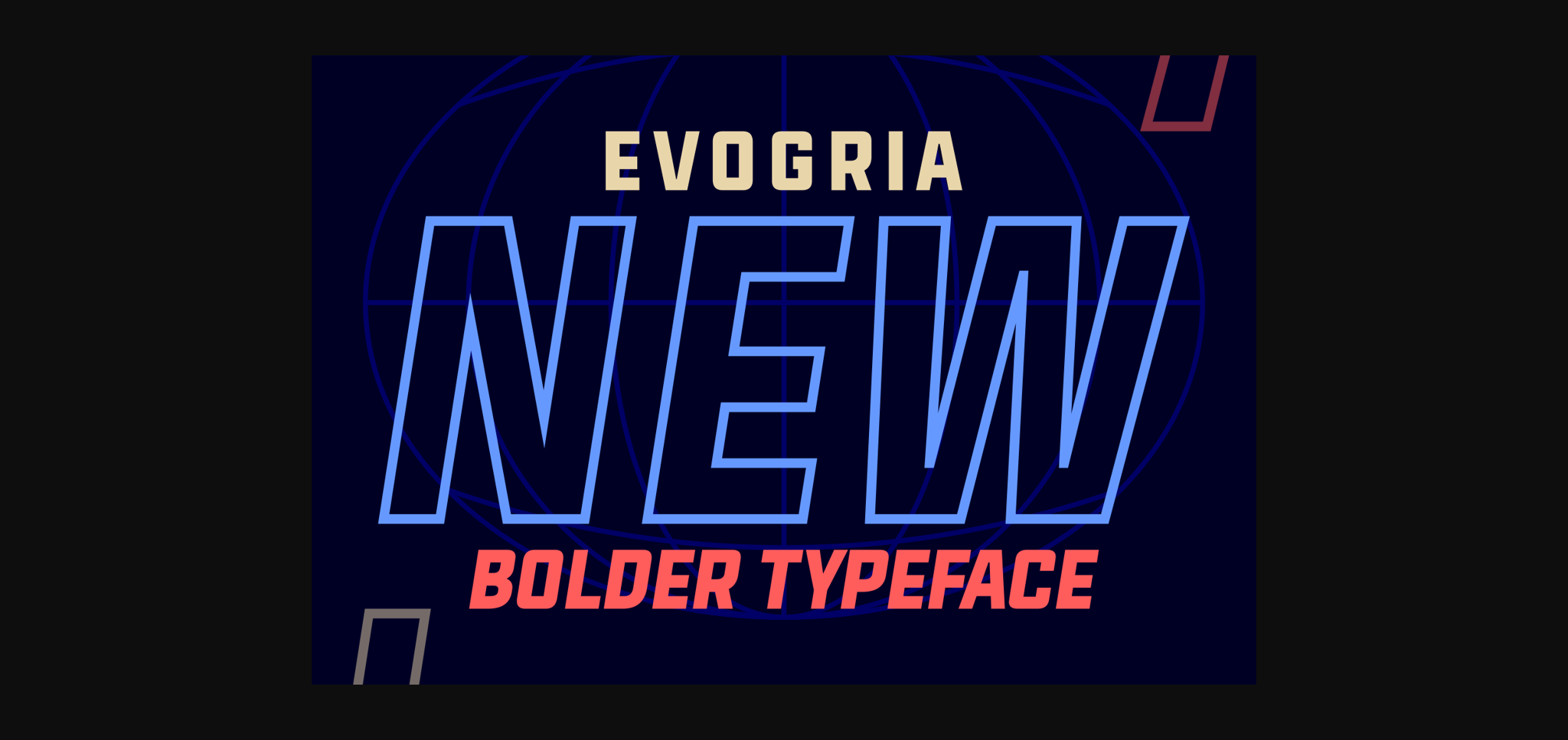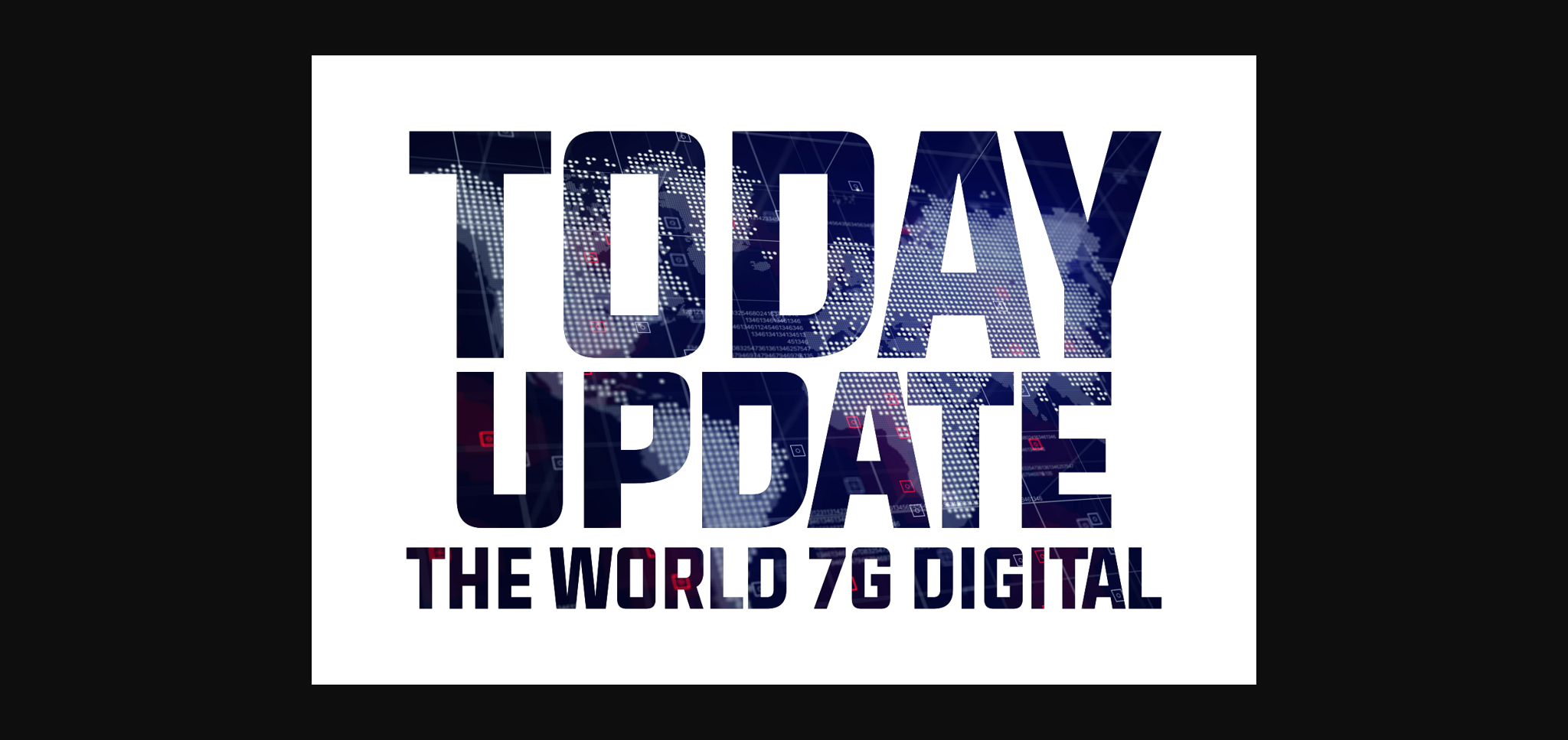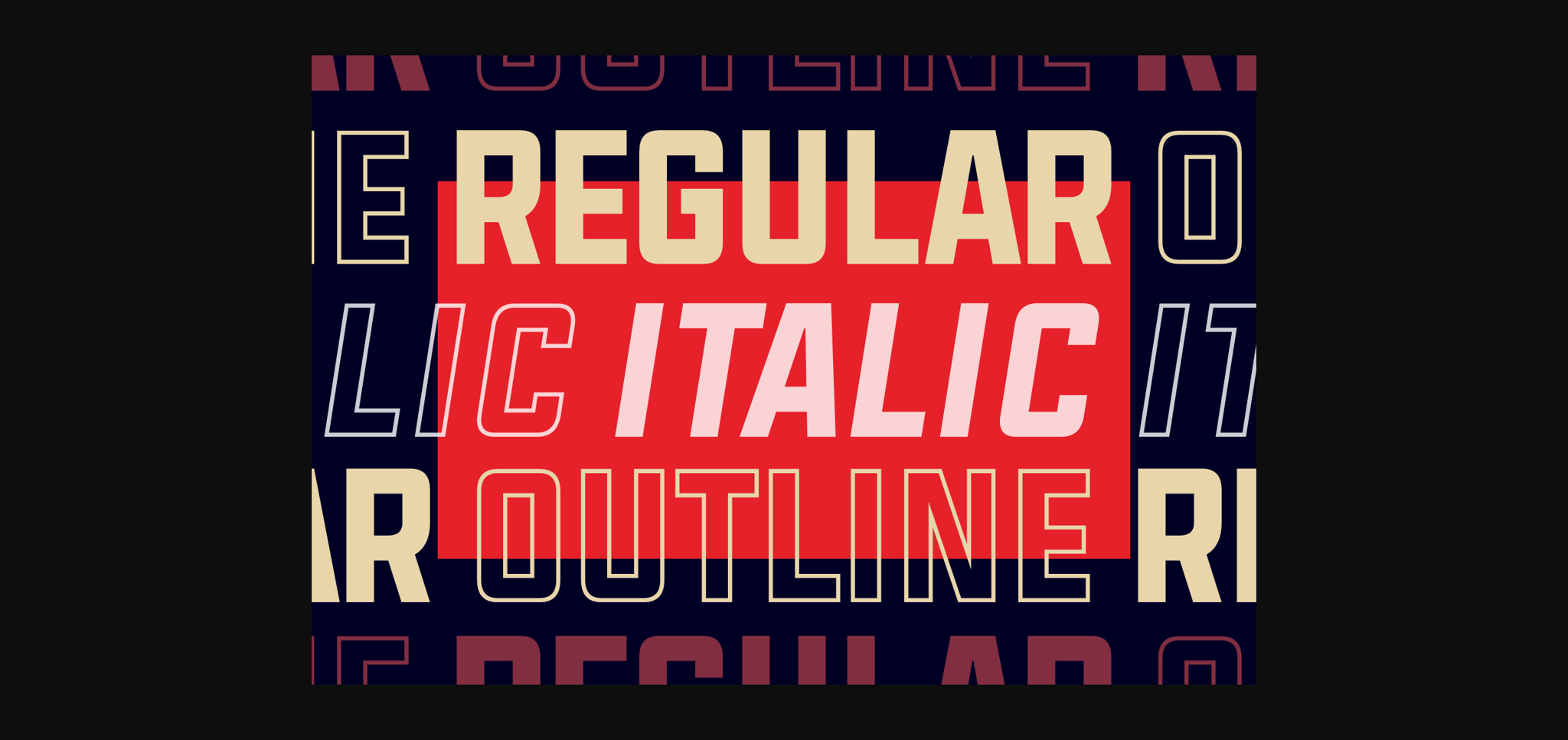
About Evogria New Font
Evogria New is a bold and expressive sans serif font.
This compact family works great when creating design that needs to leave a lasting impact.